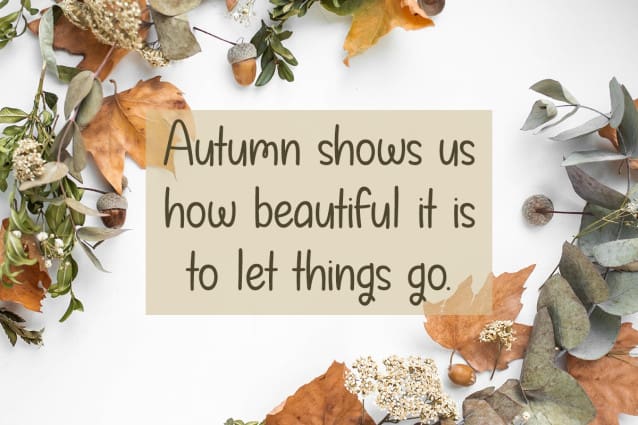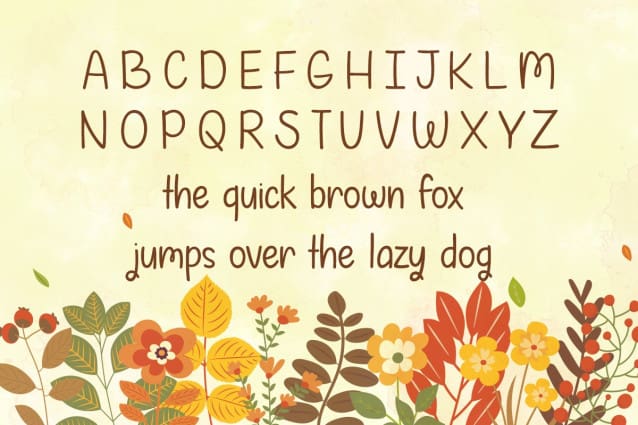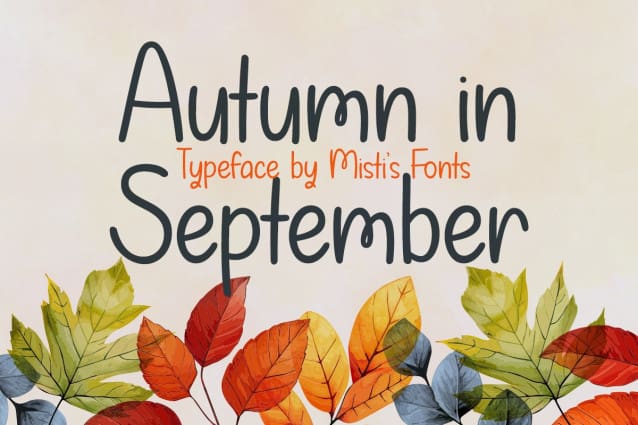
Autumn In September Font
Autumn In September Font is a charming handwritten font that captures the cozy essence of fall. With its playful curves and gentle strokes, this font brings a warm, inviting feel to any project. Perfect for adding a nice touch to invitations, greeting cards, and social media graphics, “Autumn in September” evokes the nostalgia of crisp autumn leaves and the joy of handwritten notes. Its casual yet stylish design makes it versatile for both whimsical and elegant applications, adding a dash of seasonal cheer to your creative work.